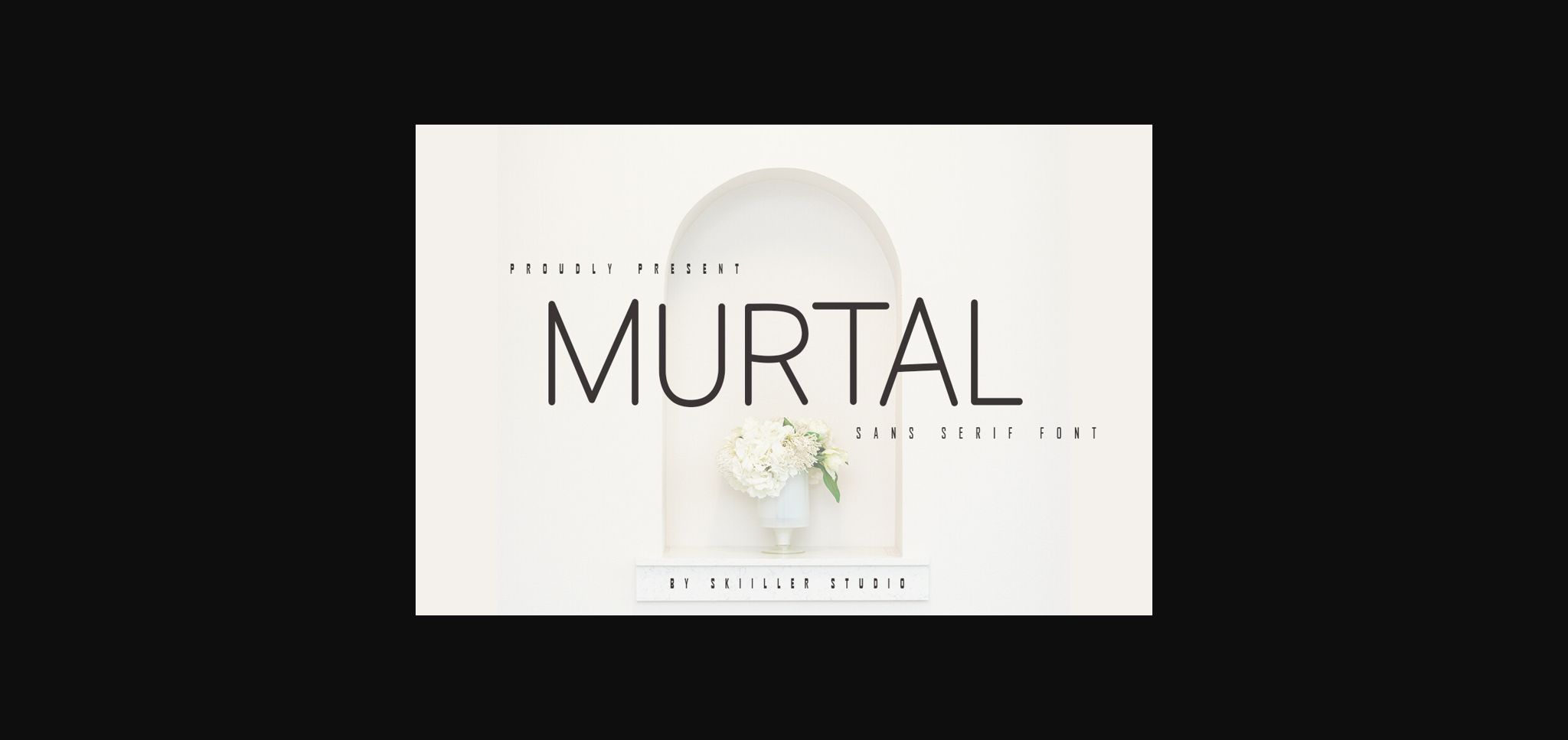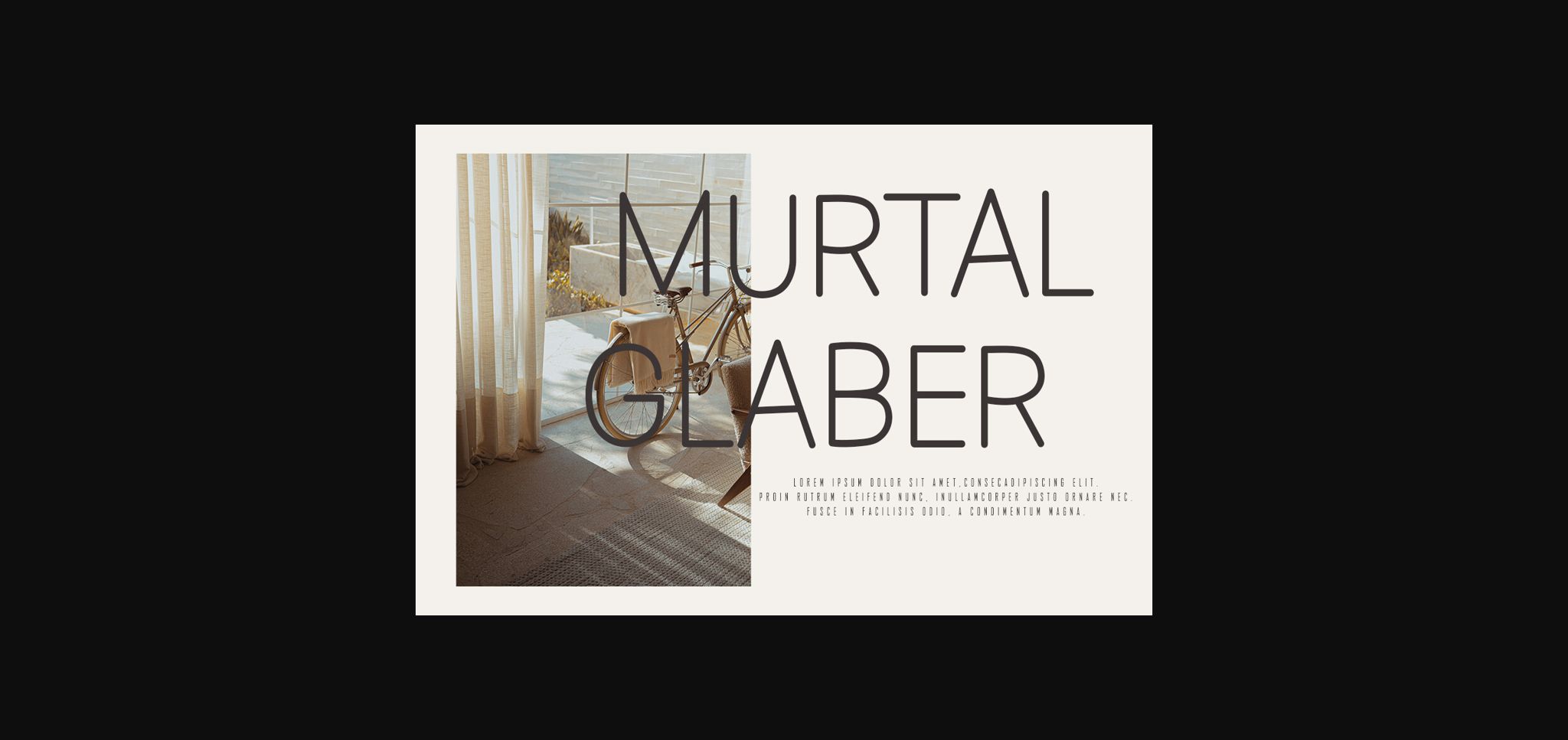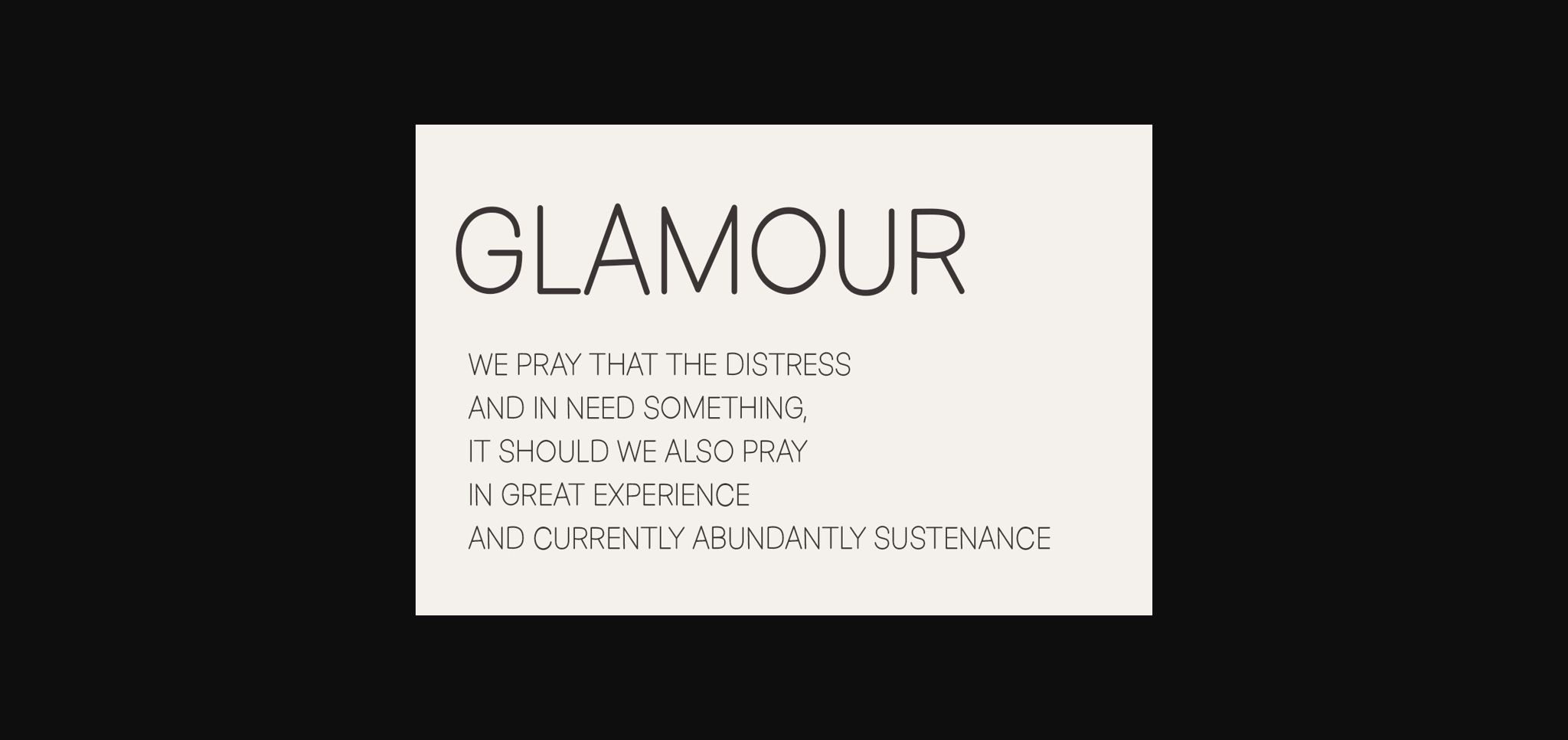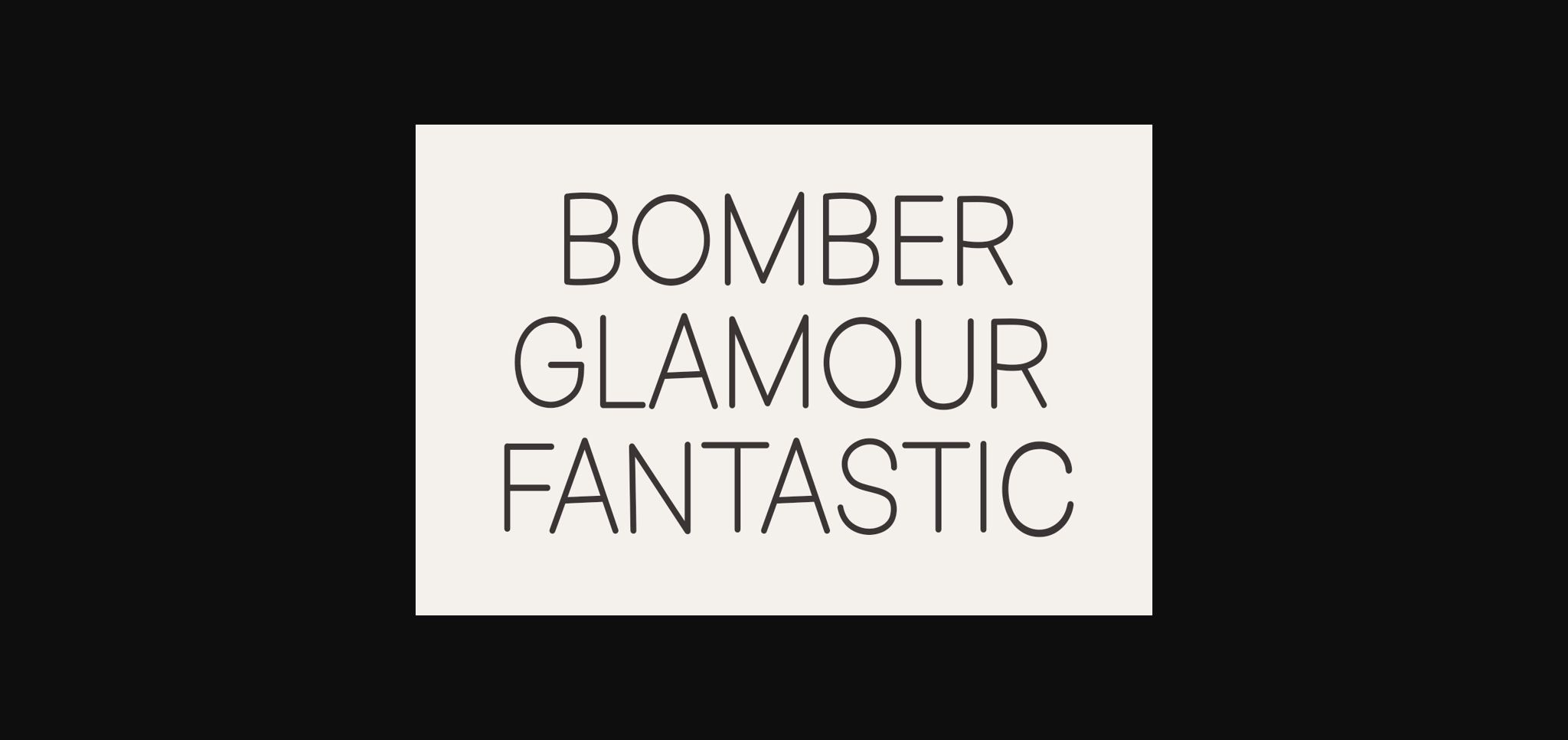
Murtal Font
About Murtal Font
Murtal is a condensed sans serif font. It has an elegant, classy and modern look. It’s a great font for fashion, signatures, album covers, logos, branding, magazines, social media, & advertisements.